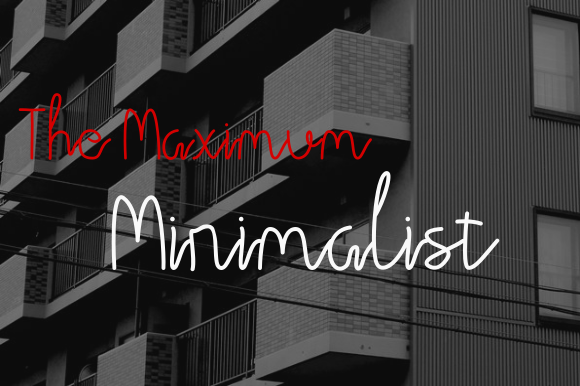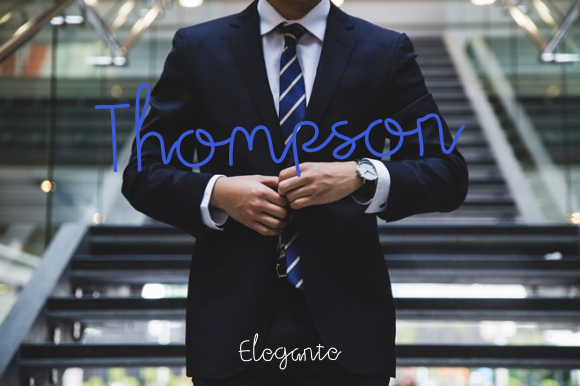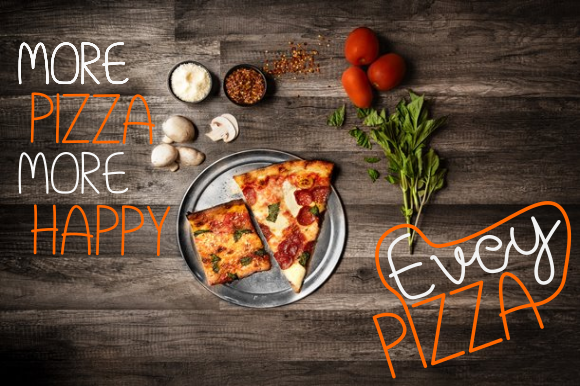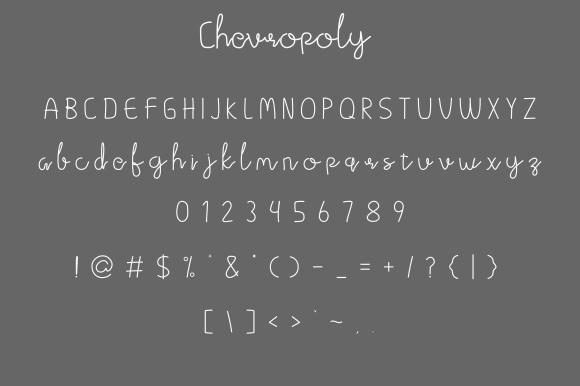
Cheropoly Font
About Cheropoly Font
Cheropoly is a classic, stylish, and modern handwritten typeface. It can add that signature touch to any design project.